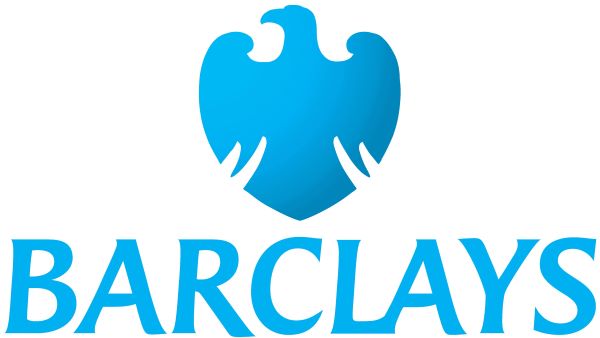
Barclays Font
What Font is Barclays?
The Barclays font used in the bank’s signature wordmark is most likely Baker Signet Std Roman, a commercial typeface by Bitstream. Its elegant, finely sculpted letterforms create a refined and trustworthy appearance—an ideal fit for one of the world’s most established financial institutions. Because Baker Signet Std Roman is a premium font, we’ve also found a free alternative that offers a similarly classic, serif-driven style suitable for personal projects or brand-inspired design work.